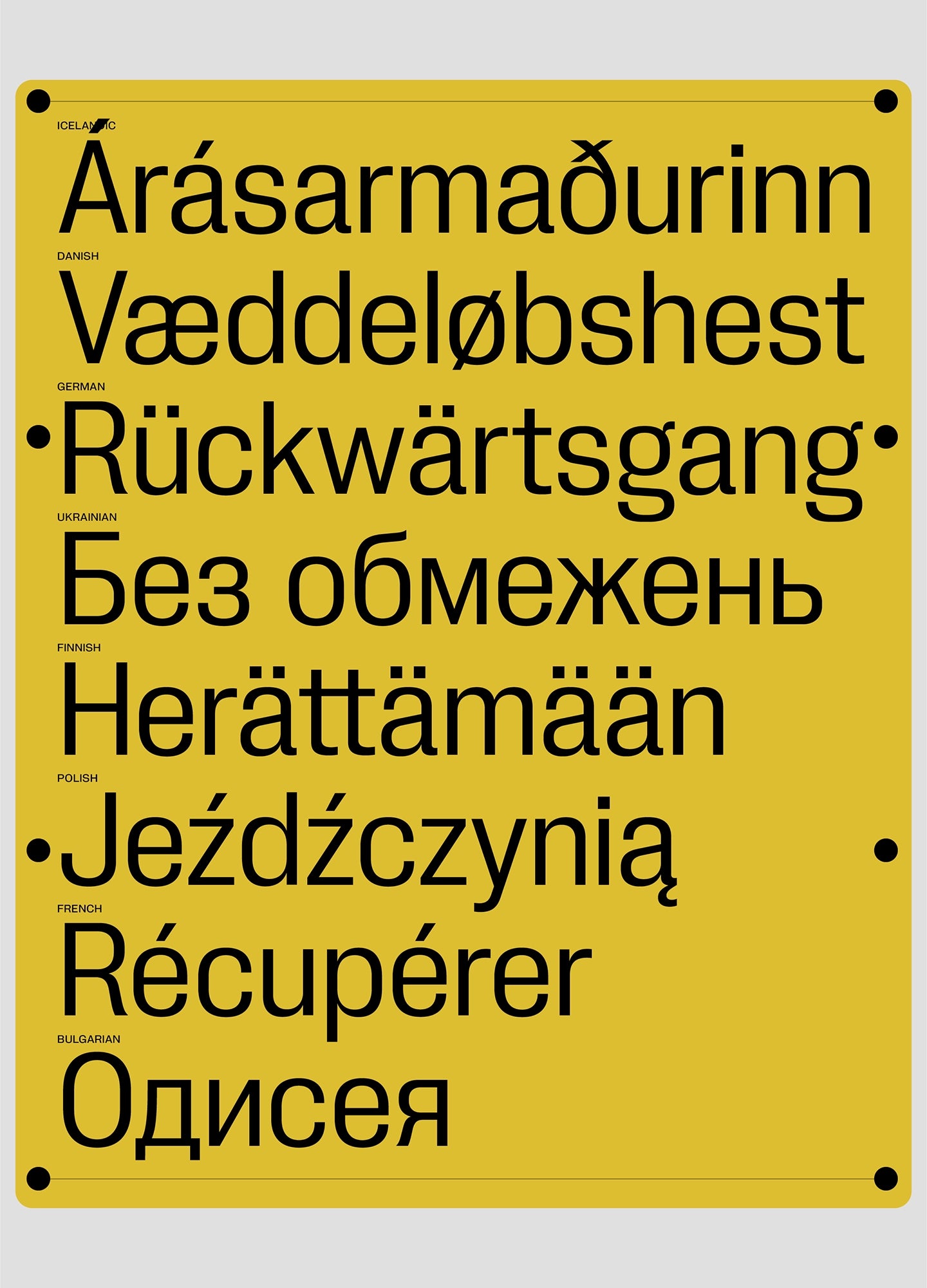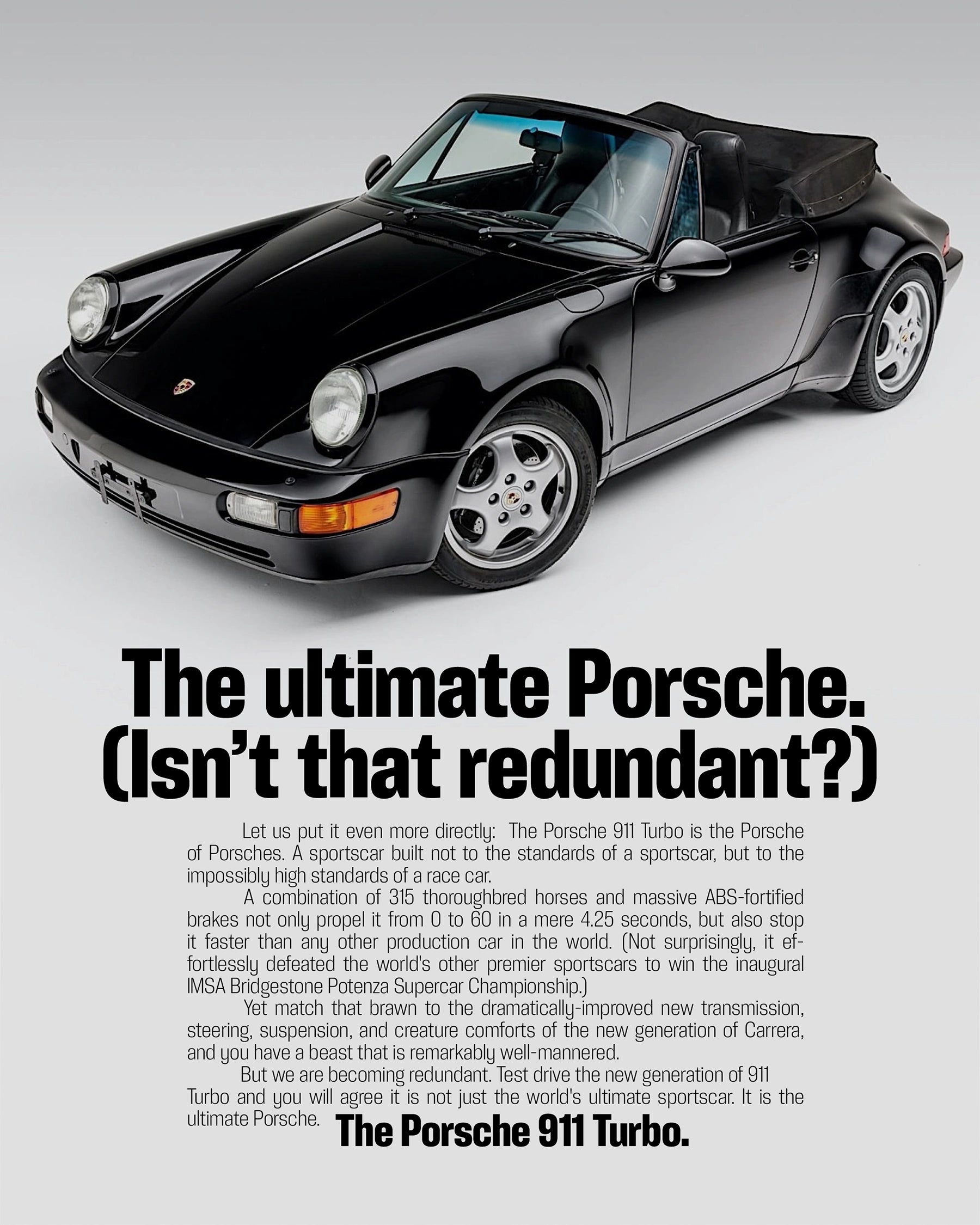
Neue Corp Condensed
Ultimate tool for advertising.
It combines the eccentricity of old wood type with the precision of neo-grotesques.
In the year 2067, the world stood at the brink of chaos. Nations were fragmented, societies polarized, and communication had become a cacophony of noise. Amidst this turmoil, a new corporation emerged from the ashes of a divided world: Neue Corp.
What set them apart was not just their innovative approach to business or their cutting-edge technology, but a single, unifying element that would change the course of history—a typeface known as Neue Corp. Neue Corp began as a small collective of designers, typographers, and visionaries who believed that the world needed a new way to communicate. They saw how fragmented typography had become, with countless fonts competing for attention, each one pulling people in different directions. They wanted to create a typeface that could transcend these divisions, one that would be universally recognized, understood, and loved. The team spent years perfecting their creation. They studied the psychology of shapes, the cultural significance of design, and the impact of typography on human behavior. The result was a typeface that was not only beautiful but also versatile. Neue Corp could adapt to any language, any culture, and any context. It was more than just a font—it was a language in itself, a tool for global unity. The world quickly took notice of Neue Corp’s typeface. It was adopted by major corporations, governments, and educational institutions, not just for its aesthetic appeal but for its ability to convey clarity, trust, and inclusivity. Whether it was used on a billboard in Tokyo, a government document in Berlin, or a textbook in Nairobi, Neue Corp spoke to everyone in the same voice, bridging gaps that had long divided humanity. As more organizations embraced the typeface, something remarkable began to happen. Miscommunication decreased, public discourse became more civil, and collaboration across cultures and borders became easier. Neue Corp had managed to do what no government, treaty, or technology had ever accomplished: it united the world, one letter at a time.
Neue Corp Condensed is variable
Neue Corp Condensed's Features
Grotesk Set
Geometric Set
Alternate g
Alternates Cyrillic
Alternate I
Round dots
Tabular figures
Alternate l
Alternate 1
Slashed Zero
Ultimate tool for advertising.
Neue Corp is a versatile typeface, crafted to be the ultimate creative tool for any advertising, marketing, or digital endeavor. Designed with a broad range of widths and weights, it empowers designers and studios to adapt it to any context, from bold headlines to refined body text.
Balancing character with neutrality, it combines the eccentricity of old wood type with the precision of neo-grotesques. The Black and Condensed styles are inspired by classic Hamilton Mfg. Co. typefaces, while the wide Bolds are influenced by Helvetica Extended. Regular styles draw from Univers but with softened details for a friendlier tone.
Alternate stylistic sets offer even more flexibility: one set makes the typeface more geometric and neutral, while the other brings out a bold, grotesque character with added spurs. With a design spectrum ranging from subtle Thin to powerful Black, and from narrow Compressed to bold Extended, this typeface is ready to elevate any project with style and precision.
20 Weigths with 1049 Glyphs each
Including Italics and Cyrillic Support